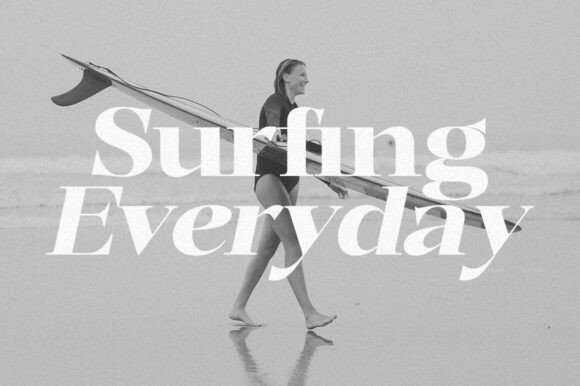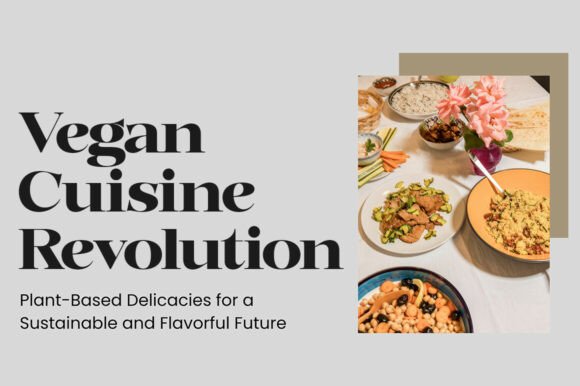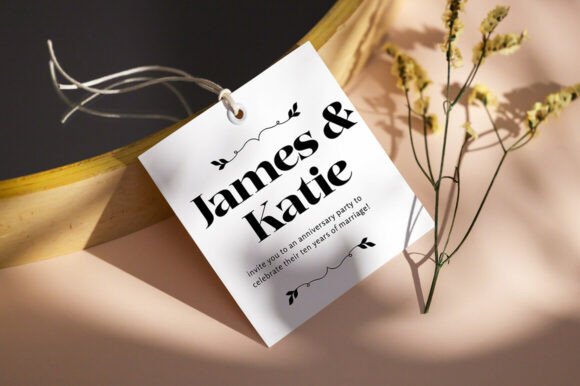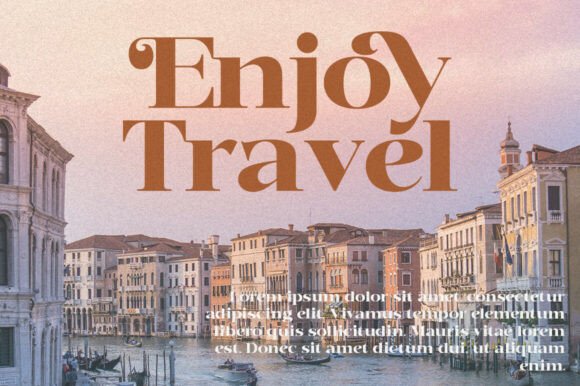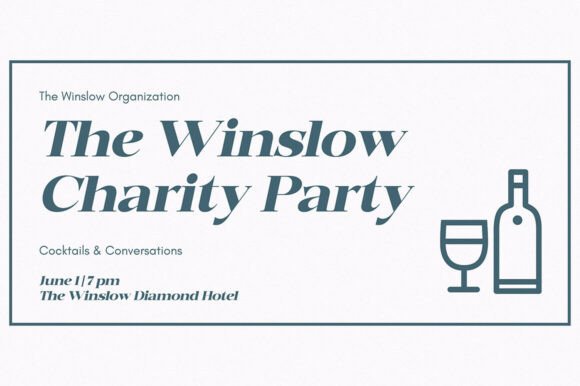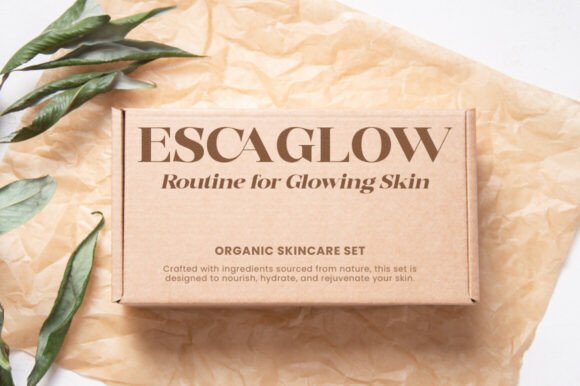
Introducing Garage Hostar: A Serif Font that Redefines Elegance and Whimsy
In the world of typography, few fonts manage to strike a balance between classic sophistication and modern playfulness. Garage Hostar, a unique serif font, achieves this delicate balance with remarkable finesse. This highly expressive typeface seamlessly merges traditional elegance with bold, modern detailing, making it an exceptional choice for designers and crafters seeking to make a statement.
The Essence of Garage Hostar
Garage Hostar is characterized by its high-contrast letterforms, a hallmark of Didone-style typefaces. However, what sets it apart is its dramatic twist: ornamental teardrop terminals and exaggerated curves that infuse the font with a whimsical, almost theatrical flair. The consistent vertical stress and sharp contrast between thick and thin strokes ground the font in traditional serif principles, while the flourishes and loops offer a striking, unconventional character suited for artistic expression.
Design Features and Versatility
The versatility of Garage Hostar lies in its ability to function both as a headline display typeface and a logo-defining element. The uppercase set conveys boldness and authority, making it perfect for titles, headings, and branding applications where impact is crucial. On the other hand, the lowercase letters enhance the typeface’s personality with fluid, calligraphic motion, adding a touch of elegance and sophistication to any design.
Applications and Use Cases
Garage Hostar is ideal for use in a variety of design projects, including:
- Branding: The font’s unique blend of elegance and whimsy makes it an excellent choice for logos, trademarks, and brand identities that require a distinctive touch.
- Editorial Titles: Garage Hostar’s high-contrast letterforms and ornamental details make it perfect for titles, headings, and pull quotes in editorial design, adding a touch of sophistication and luxury.
- Luxury Packaging: The font’s elegant and refined appearance makes it suitable for luxury packaging designs, where high-end branding and visual appeal are paramount.
- Modern Posters: Garage Hostar’s bold and eye-catching design makes it an excellent choice for posters, flyers, and other promotional materials that require a striking visual impact.
Why Choose Garage Hostar?
Garage Hostar makes a strong statement while remaining remarkably versatile. Its unique blend of classic elegance and modern whimsy offers designers and crafters a distinctive typographic voice that can elevate any design project. Whether you’re looking to create a bold brand identity, craft a luxurious editorial spread, or design eye-catching packaging, Garage Hostar provides the perfect combination of style, sophistication, and creative flair.
In conclusion, Garage Hostar is a serif font that redefines the boundaries of elegance and whimsy. Its unique design features, versatility, and wide range of applications make it an exceptional choice for designers and crafters seeking to add a touch of sophistication and creativity to their design projects. With Garage Hostar, you can create stunning visual experiences that leave a lasting impression.
- Font Style: Serif
- Font Family: Garage Hostar
- Weight: Multiple weights available
- Glyph Set: Extended glyph set, including uppercase, lowercase, numerals, and punctuation
- Supported Languages: Multiple languages supported
Overall, Garage Hostar is a remarkable font that offers a distinctive typographic voice for designers and crafters. Its unique blend of elegance, whimsy, and versatility makes it an excellent choice for a wide range of design applications.